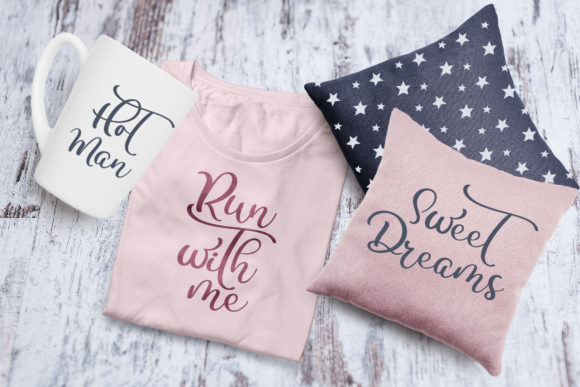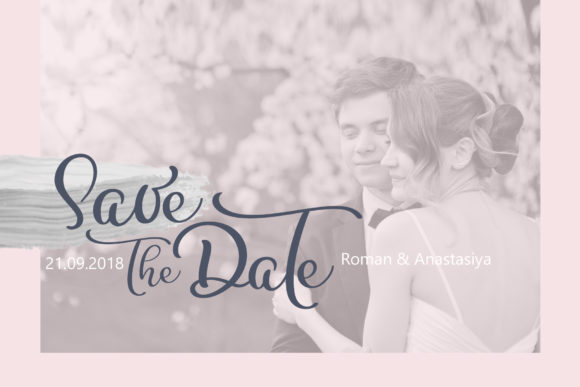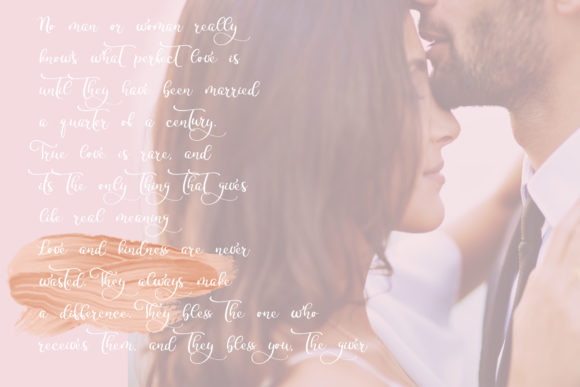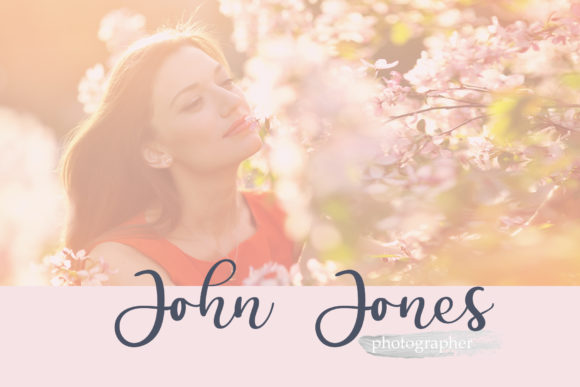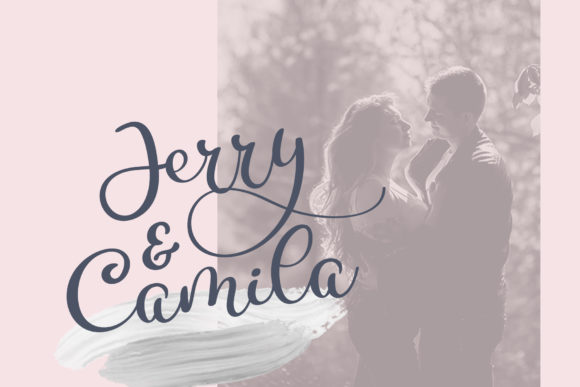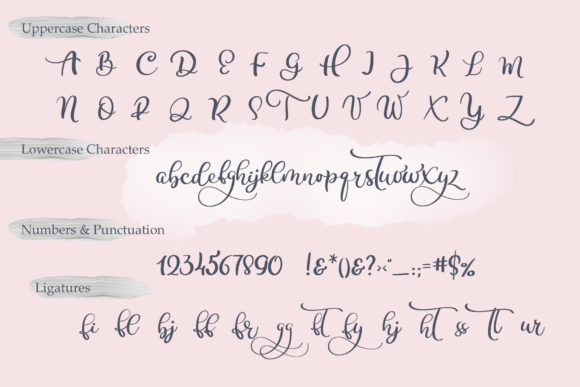
Introducing Delight Font: Elevate Your Designs with Elegance and Sophistication
The Delight font is a stunning handwritten calligraphy font that has been making waves in the design community. Its elegant and feminine style makes it the perfect choice for designers and crafters looking to add a touch of luxury and sophistication to their work. In this article, we’ll dive into the world of Delight Font, exploring its features, benefits, and uses, as well as provide tips on how to make the most of this beautiful font.
A Beautiful Handwritten Calligraphy Font
The Delight font is a beautiful example of handwritten calligraphy. Each letter is carefully crafted to exude elegance and refinement, making it perfect for designs that require a high-end look. The font’s flowing lines and curves create a sense of movement and fluidity, adding a touch of whimsy and romance to any design.
Elegant and Feminine Style
The Delight font’s elegant and feminine style makes it a versatile choice for a wide range of design projects. Whether you’re working on a wedding invitation, a fashion brand, or a luxury product, this font is sure to impress. Its feminine touch adds a level of sophistication and glamour, making it perfect for designs that require a high level of refinement.
Perfect for Upscale and Chic Designs
The Delight font is designed to make your designs look upscale and chic. Its elegant style and refined lines make it perfect for designs that require a high level of sophistication. Whether you’re working on a logo, a brochure, or a website, this font is sure to elevate your design to the next level.
The Delight font comes with a range of features and benefits that make it a must-have for designers and crafters. Some of its key features include:
- Elegant and refined lines: The Delight font features elegant and refined lines that add a touch of sophistication to any design.
- Feminine style: The font’s feminine style makes it perfect for designs that require a touch of elegance and glamour.
- Handwritten calligraphy: The Delight font is a beautiful example of handwritten calligraphy, adding a touch of whimsy and romance to any design.
- Versatile: The font is versatile and can be used for a wide range of design projects, from wedding invitations to fashion brands.
Uses for Delight Font
The Delight font is perfect for a wide range of design projects, including:
- Wedding invitations: The font’s elegant style and refined lines make it perfect for wedding invitations and other wedding-related designs.
- Fashion brands: The Delight font’s feminine style and sophisticated lines make it perfect for fashion brands and luxury products.
- Logos: The font’s elegant style and refined lines make it perfect for logos and branding projects.
- Brochures and flyers: The Delight font is perfect for brochures and flyers that require a high level of sophistication and elegance.
- Websites: The font’s elegant style and refined lines make it perfect for websites that require a high level of sophistication and luxury.
- Use it for headings: The Delight font is perfect for headings and titles, so use it to add a touch of elegance and sophistication to your design.
- Experiment with colors: The Delight font looks great in a range of colors, so experiment with different colors to find the perfect look for your design.
In conclusion, the Delight font is a beautiful handwritten calligraphy font that is perfect for designers and crafters looking to add a touch of elegance and sophistication to their work. Its elegant style and refined lines make it perfect for a wide range of design projects, from wedding invitations to fashion brands. With its versatility and range of features, the Delight font is a must-have for any designer or crafter looking to elevate their designs to the next level.